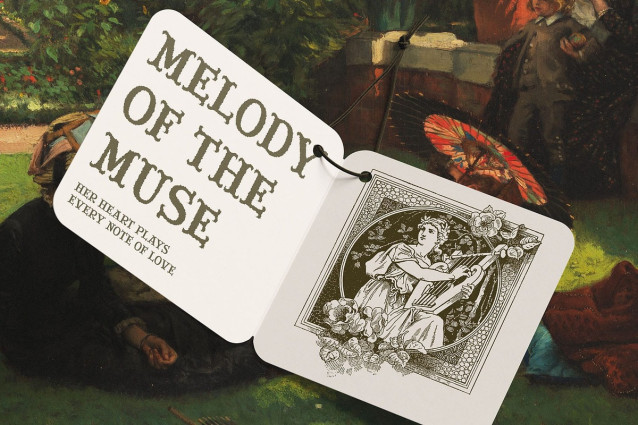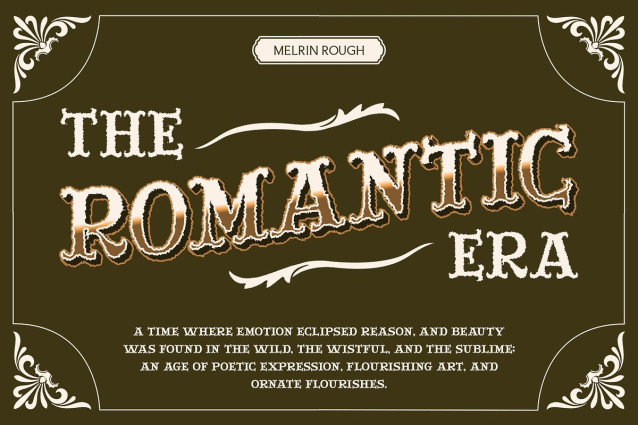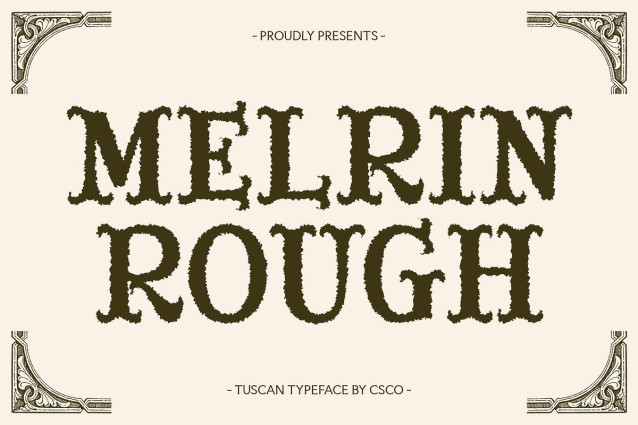
Melrin Rough Font
Melrin Rough is a display serif font that fuses classic serif elegance with elaborate decorative detailing. The base serif structure adds a sense of refinement and readability, while its ornate accents enhance visual richness. These flourishes lend the typeface a distinctive artistic character, making it ideal for standout headlines, logos, or titles that demand attention and creativity.
Funky Shapes for Playful and Bold Expression What sets Melrin Rough apart is its unconventional and funky letterforms that break away from traditional serif norms. Each character is designed with a quirky twist—bold curves, unexpected angles, and asymmetrical strokes give it a playful, daring attitude.
Rough Texture for Raw Energy and Organic Charm Layered with a rough, distressed effect, Melrin Rough gains an added level of texture and depth. This raw aesthetic introduces a handcrafted, gritty quality that contrasts beautifully with its decorative elegance. The result is a font that feels alive—full of texture, character, and energy—ideal for dynamic designs.
Perfect for Bold and Non-Traditional Designs Melrin Rough’s unique combination of decorative details, funky energy, and raw texture makes it the perfect choice for projects that thrive on creativity and individuality. It shines in applications like music or cultural event posters, artisanal product packaging, bold fashion branding, or any visual concept that embraces expressive typography.